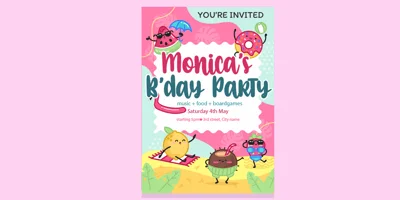
Usefully Font
Usefully Font excels in practical design applications including productivity tool branding, organizational system materials, efficiency consulting firms, practical solution companies, utility service communications, functional product packaging, workplace optimization presentations, practical lifestyle brands, systematic documentation, and purpose-driven marketing campaigns. This efficient typeface brings functional clarity to utility-focused design projects.
What makes Usefully Font truly exciting is its perfect balance of practical functionality with aesthetic appeal that proves useful design can be beautiful through thoughtful construction. The font features well-organized letterforms with utilitarian proportions and efficient character that convey reliability, practicality, and the sophisticated simplicity of tools designed to work perfectly. Its functional personality and practical character make it ideal for brands celebrating useful solutions, efficient systems, and audiences who appreciate practical design, functional beauty, and the satisfaction of well-designed tools that make life easier and more organized.
The Usefully Font family typically includes multiple weights with potential systematic variations that enhance its functional character. These practical options provide designers with complete utility styling while maintaining the font's distinctive functional elegance and purposeful presentation across various practical applications and efficiency contexts.
Whether you're developing utility branding, creating efficiency campaigns, or designing practical marketing materials, Usefully Font provides the functional authority and utilitarian sophistication that purpose-driven projects require. Its exceptional practicality and useful appeal make it invaluable for designers working with productivity companies, organizational services, and efficiency-focused brands requiring typography that celebrates functional design, practical solutions, and the beautiful simplicity of well-designed systems that serve genuine human needs through thoughtful, purposeful design that prioritizes usefulness without sacrificing aesthetic quality and visual appeal.